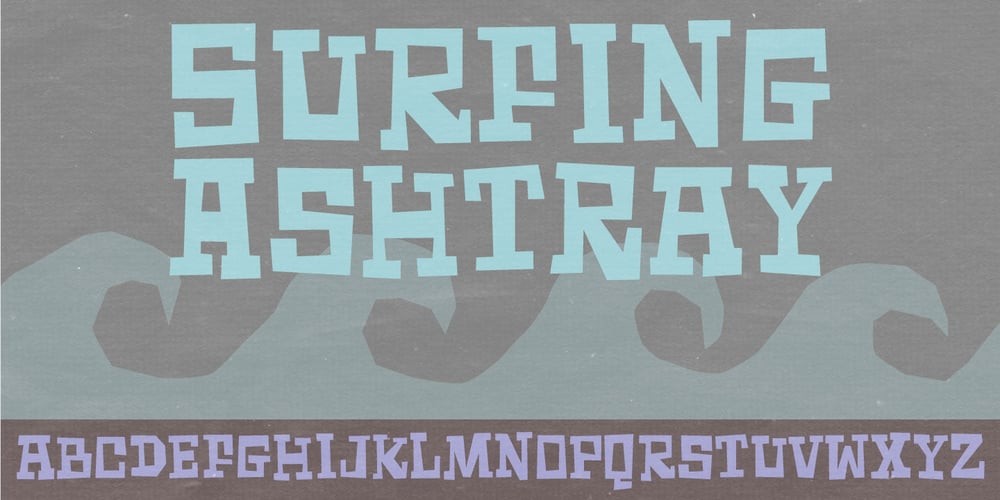
Surfing Ashtray Font Family was designed by Jakob Fischer and published by PizzaDude.dk. Surfing Ashtray contains 1 styles and family package options. Inspired by old surfer movie posters from the 60’ies. Surfing Ashtray consists of straight lines only – ironically the direct opposite of the ocean waves that was a part of the inspiration of this font! Hit the waves with extra ligatures for double letters, swashes and alternate letters.